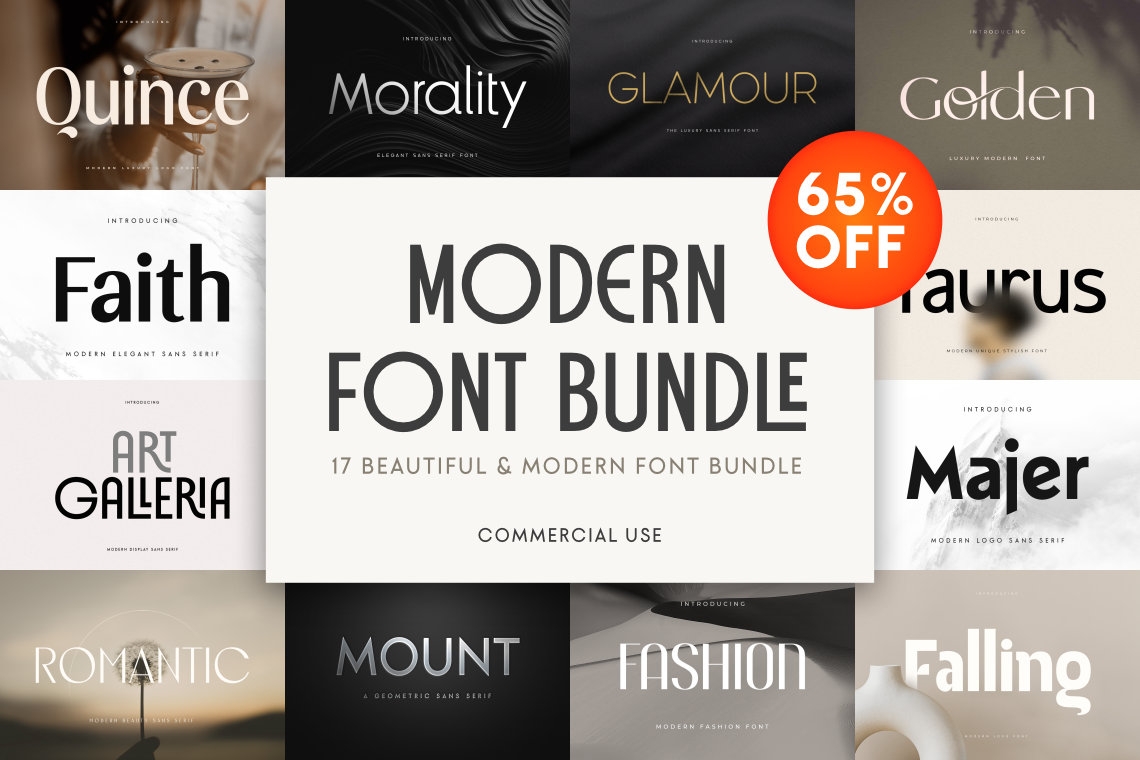
Modern Font Bundle 17 in 1
Embrace contemporary elegance with our "17 in 1 Unique and Modern Font Bundle". Tailored for the graphic designer seeking a blend of uniqueness and modernity, this bundle is a treasure trove of fonts that infuse a fresh, modern feel into any project. Ideal for standout branding and logo designs, these fonts are designed to bring your creative ideas to life with a touch of class, elegance, and modern aesthetics.
Bundle Highlights:
Diverse Font Styles: Includes modern, gold, sign, commercial, cursive, block, and serif fonts.
Comprehensive Character Set: Features uppercase, lowercase, numerals, and punctuations.
Multilingual Support: Broaden your project’s appeal with our wide range of characters.
Perfect for Professional Use: Enhance your commercial and branding projects with our unique and stylish fonts.
Quince
Morality
Glamour
Golden
Faith
Taurus
Art Galleria
Majer
Romantic
Mount
Fashion
Falling
Helovatica
Funky
Campaign Sans Serif
Gayaku
Qiomy
- Sans Serif
- Serif
- Display